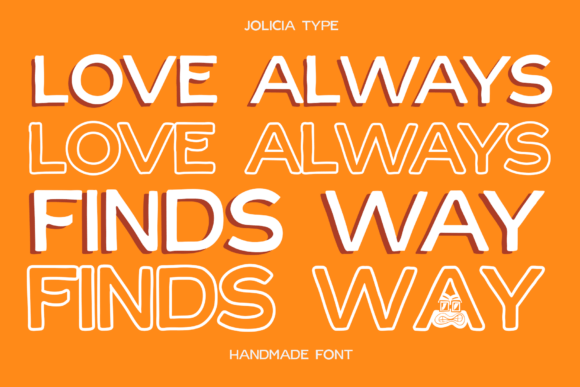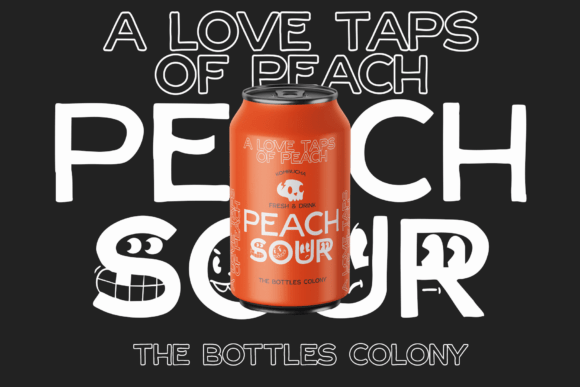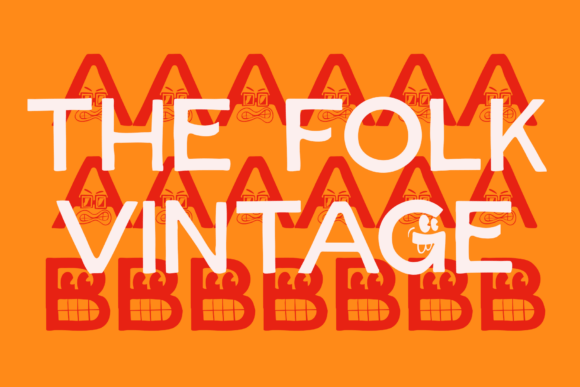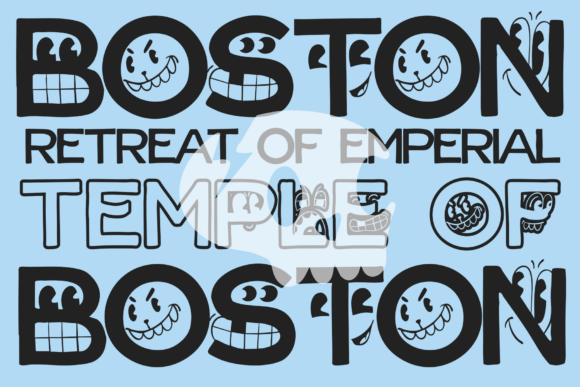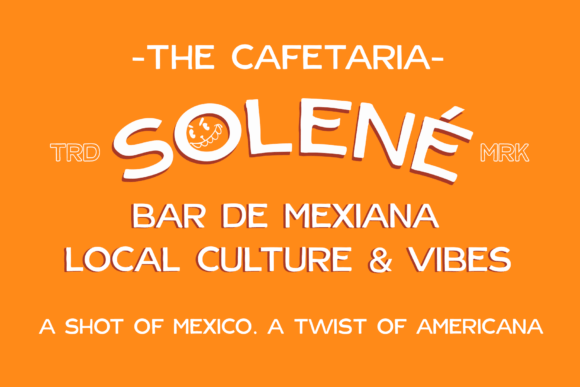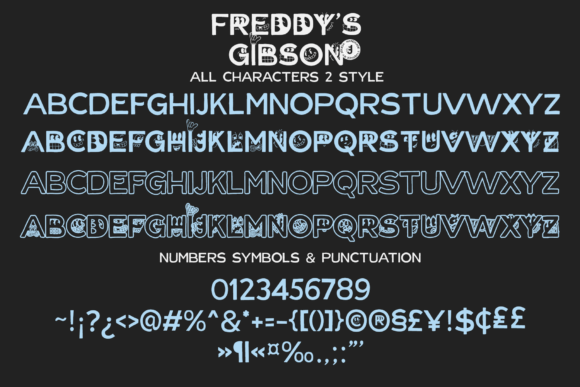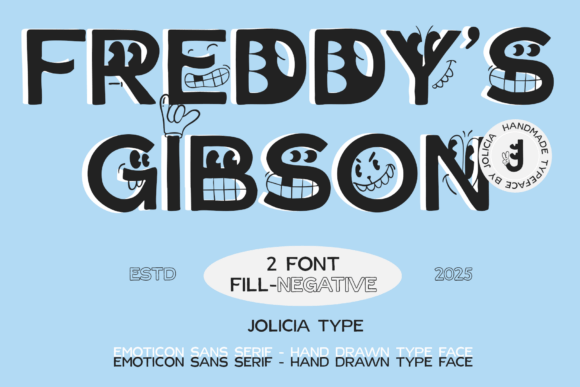
Introducing Freddygibson Regular Font: A Playful and Expressive Display Font
Are you looking for a font that can add a touch of humor and personality to your design project? Look no further than Freddygibson Regular Font, a bold and hand-drawn decorative display font that is bursting with expressive personality. This unique font is designed to turn text into a fun and animated visual experience, making it perfect for a variety of design applications.
The Standout Feature: Emoticon-Style Faces
The standout feature of Freddygibson Regular Font is the clever use of emoticon-style faces embedded within the letterforms. This playful touch turns text into a fun and animated visual experience, adding a storytelling quality to every word. Each character feels handcrafted, with varying line weights, cartoon eyes, grins, and quirky gestures that bring the text to life.
Two Styles for Playful Versatility
Freddygibson Regular Font is available in two styles: fill and negative. This offers designers playful versatility while maintaining legibility. The fill style is perfect for bold and eye-catching designs, while the negative style provides a more subtle and sophisticated look.
Freddygibson Regular Font is perfect for a variety of design applications, including children’s books, posters, toy packaging, comics, and branding that demands humor and impact. This font brings energetic charm and unforgettable character to any design, making it a great choice for designers who want to create engaging and memorable designs.
The Playful Lowercase Set
What makes Freddygibson Regular Font truly stand out is its playful lowercase set, where select characters are brought to life with expressive, emoji-like facial features. These subtle yet whimsical touches infuse personality and emotion into your text, transforming simple words into engaging and animated typography.
Key Features of Freddygibson Regular Font
- Bold and hand-drawn design: Freddygibson Regular Font has a unique and playful design that is sure to grab attention.
- Emoticon-style faces: The font features emoticon-style faces embedded within the letterforms, adding a fun and animated touch to text.
- Two styles: The font is available in two styles: fill and negative, offering designers playful versatility.
- Playful lowercase set: The lowercase set features select characters with expressive, emoji-like facial features, adding personality and emotion to text.
- Perfect for a variety of design applications: The font is perfect for children’s books, posters, toy packaging, comics, and branding that demands humor and impact.
Tips for Using Freddygibson Regular Font
Here are a few tips for using Freddygibson Regular Font in your design projects:
- Use it for headlines and titles: The font’s bold and playful design makes it perfect for headlines and titles.
- Experiment with different colors: The font’s playful design looks great in a variety of colors, so don’t be afraid to experiment.
- Pair it with a simple font: Pairing Freddygibson Regular Font with a simple font can create a great contrast and add visual interest to your design.
In conclusion, Freddygibson Regular Font is a unique and playful display font that is perfect for designers who want to add a touch of humor and personality to their design projects. With its bold and hand-drawn design, emoticon-style faces, and playful lowercase set, this font is sure to bring energetic charm and unforgettable character to any design.